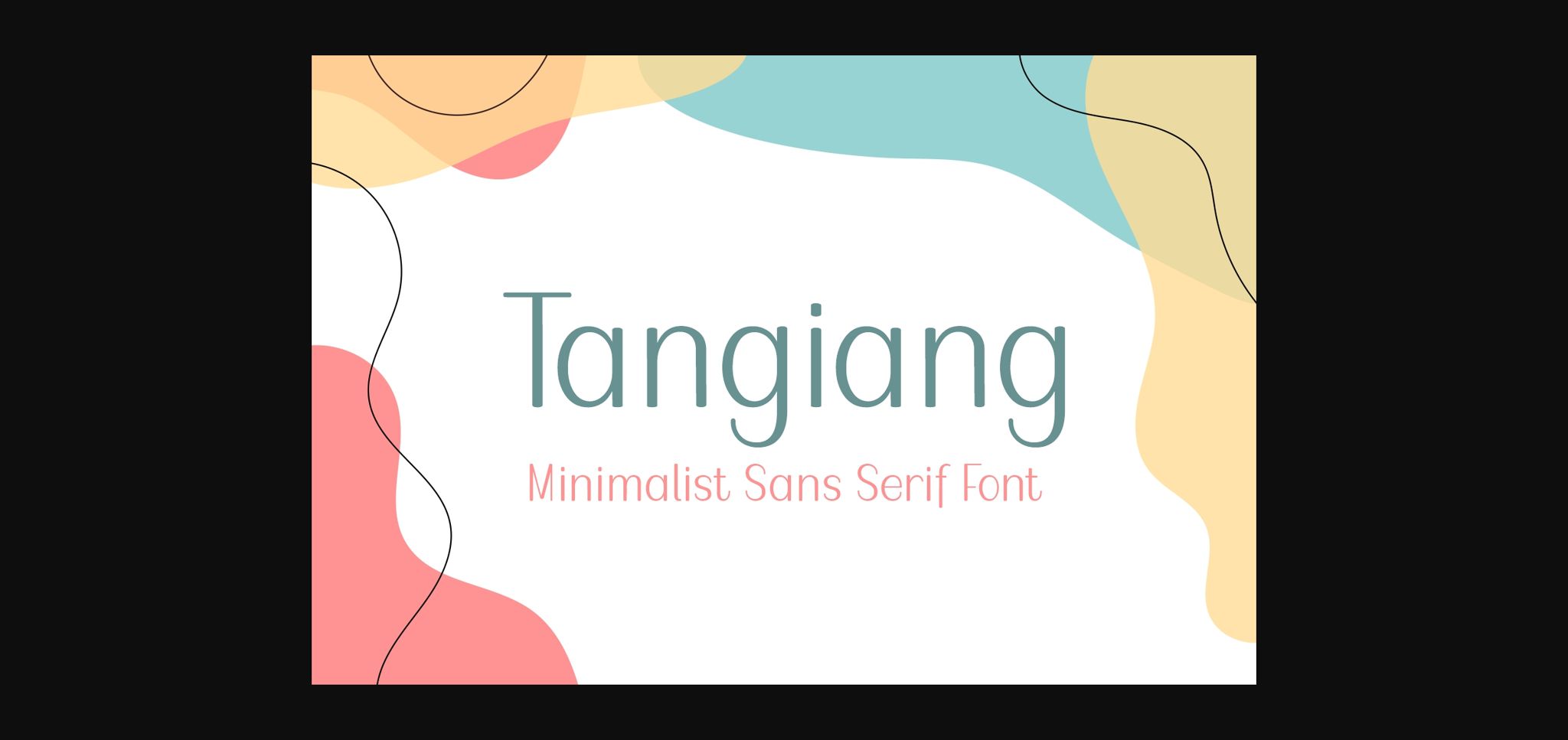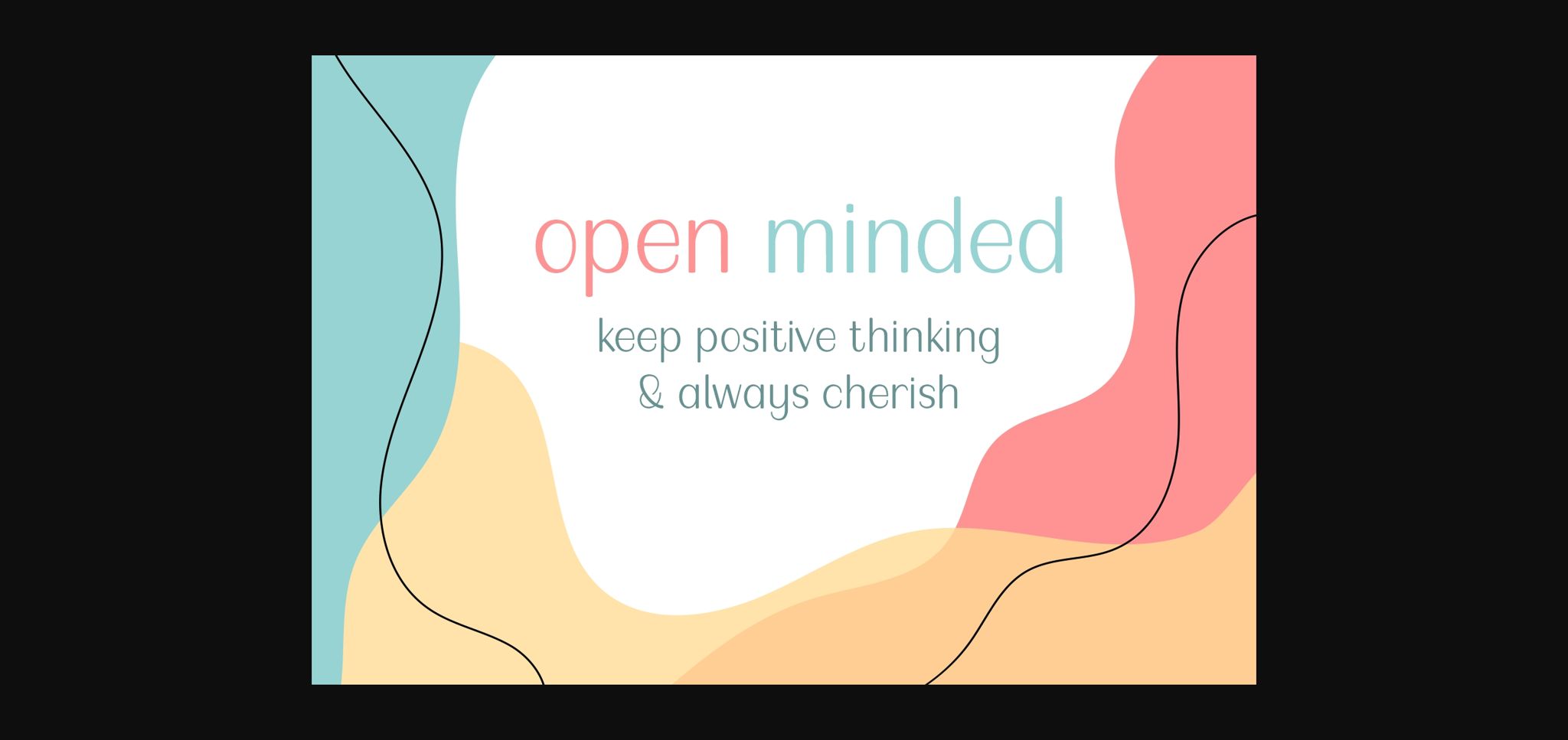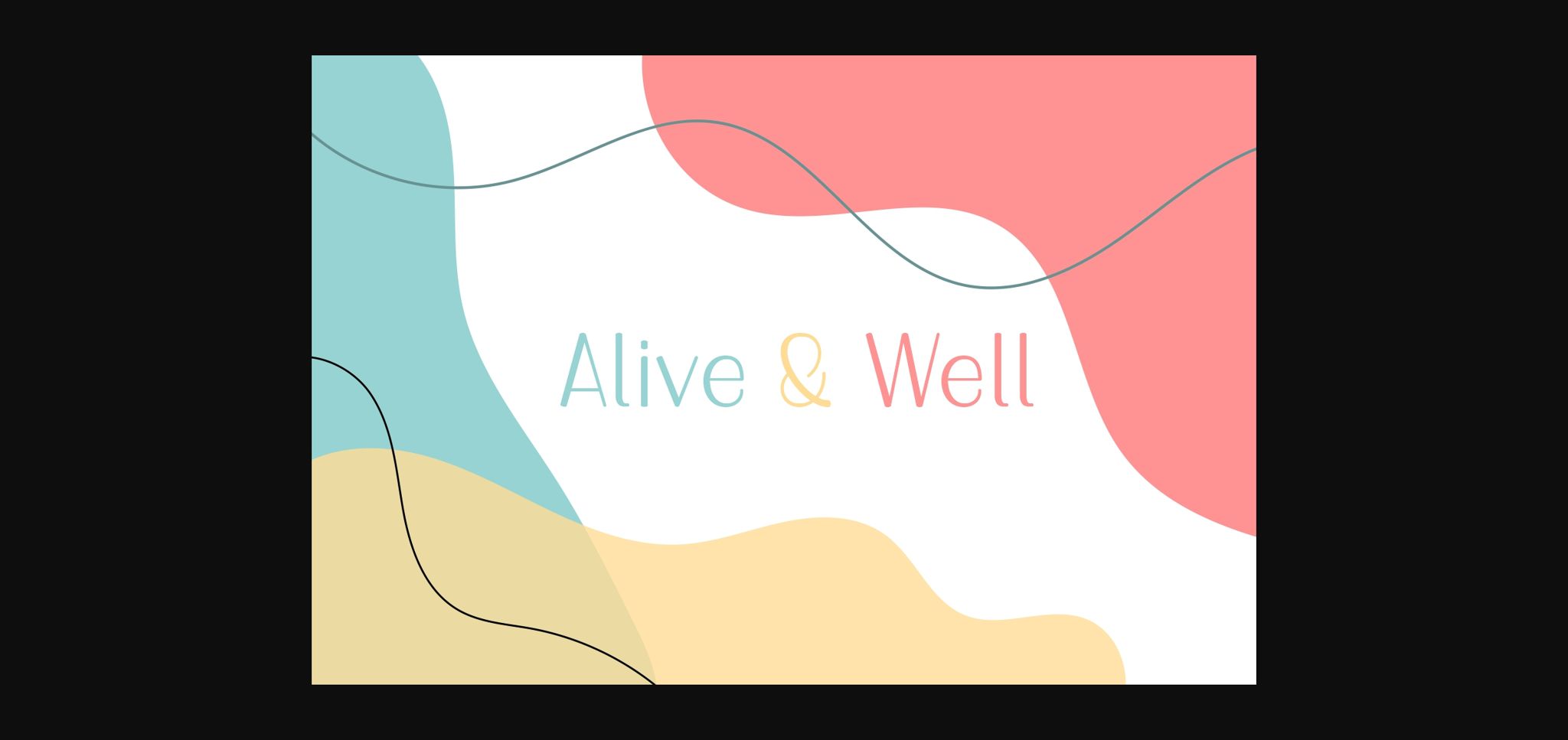
HomeSans Serif FontsTangiang Font Sans Serif Fonts Tangiang Font FacebookXPinterestWhatsApp 1 of 5 ... Tangiang Font Poster 2... Tangiang Font Poster 3... Tangiang Font Poster 4... Tangiang Font Poster 5... About Tangiang Font Tangiang is a casual sans serif font. Fall in love with its incredibly versatile style and use it to create spectacular designs! DOWNLOAD NOW People also explored Zonttife Font Better Day Font Androgino Font Hikerstone Family Font Naingolan Font Gardenia Font Gorgeous Font Oriole Bird Font Introblues Font 245 0 TagsTangiang Font Previous articleJika FontNext articleCastle Cerwyn Font LEAVE A REPLY Cancel reply Comment: Please enter your comment! Name:* Please enter your name here Email:* You have entered an incorrect email address! Please enter your email address here Website: Save my name, email, and website in this browser for the next time I comment. Personal Use Free Adriator Personal Use Free Read more about this font Metal Lord Personal Use Free Read more about this font Mail Ray Stuff Personal Use Free Read more about this font 1313 Mockingbird Lane Personal Use Free Read more about this font BLOG Best Fonts for YouTube Videos: Make Your Thumbnails Stand Out Best Fonts for YouTube Videos: Make Your Thumbnails Stand Out Choosing the right font can make a massive difference in how your YouTube videos perform.... Modern Sans-Serif Fonts That Brands Love in 2025 5 Fonts That Will Dominate Design Trends in 2026 Transform Your Website: Elevate Your Typography with 7 Best Web Font Generators